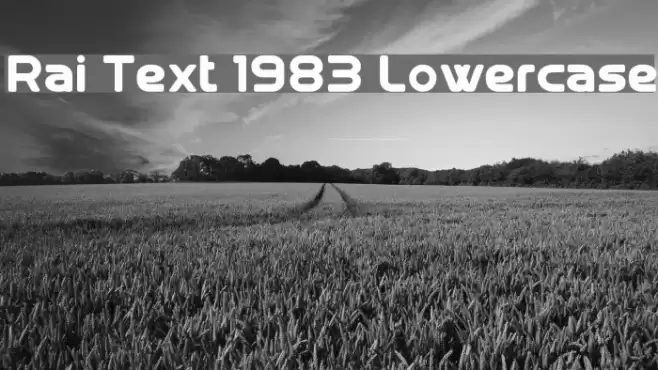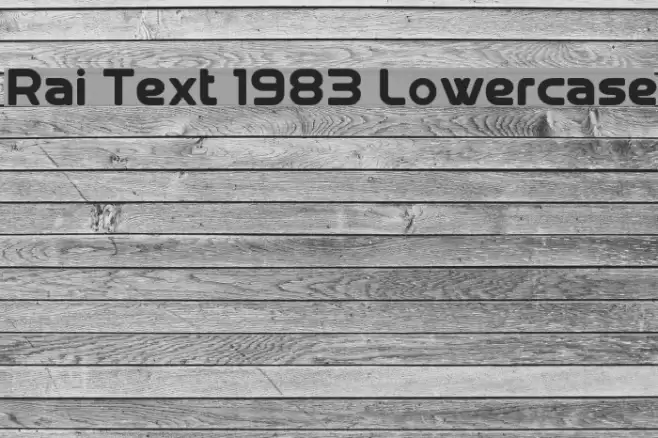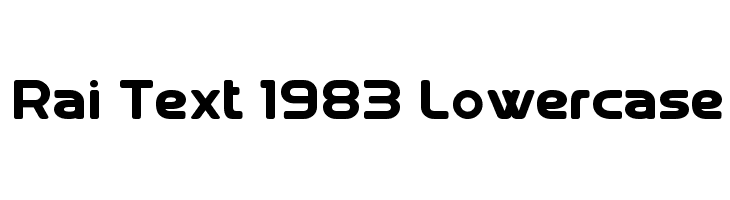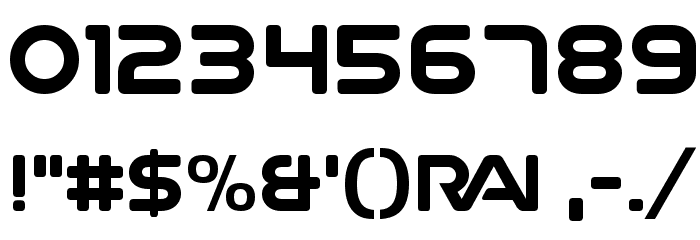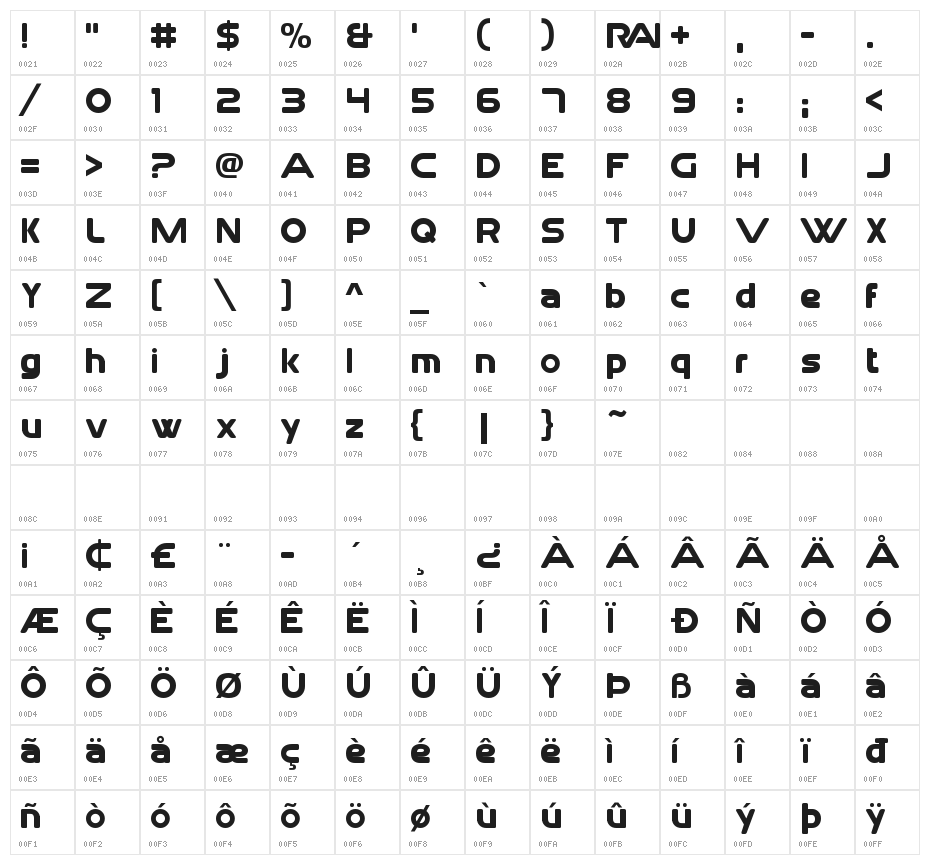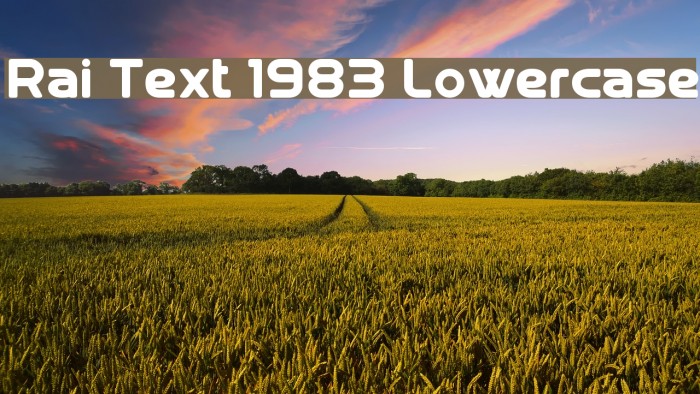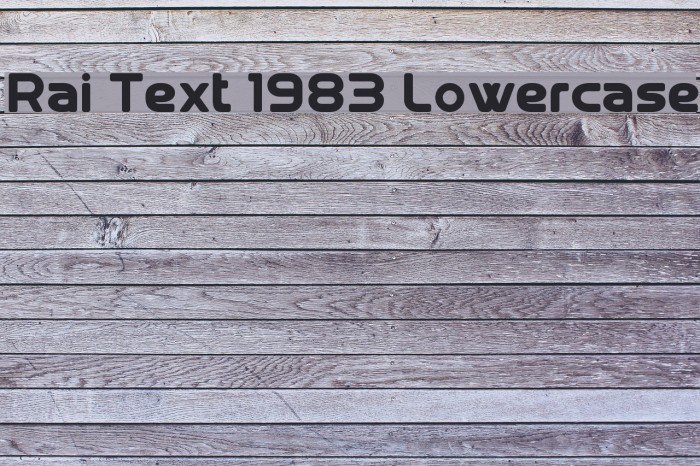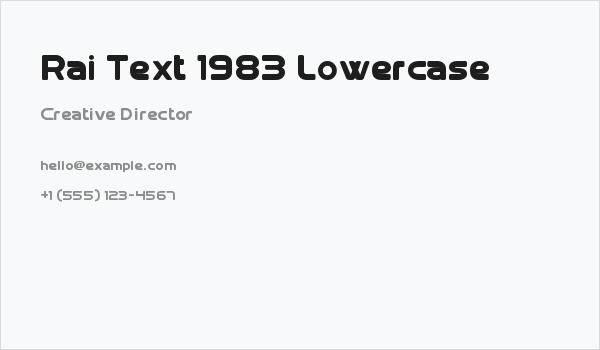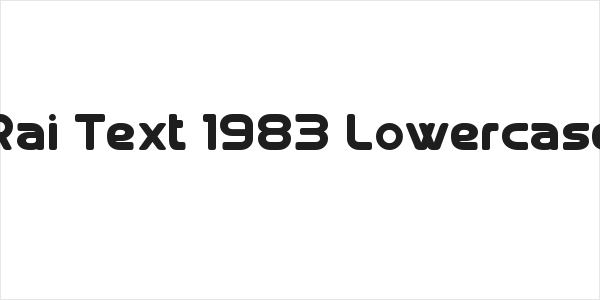
Rai Text 1983 Lowercase Font
Rai Text 1983 Lowercase Description
This font features a bold, rounded sans-serif style with a modern and futuristic aesthetic. The characters are uniformly thick, providing a strong and cohesive appearance. Its rounded edges and smooth curves give it a friendly and approachable feel, while maintaining a clean and professional look. The font is highly legible, making it suitable for various design purposes. The numbers and special characters are consistent with the overall style, ensuring a harmonious visual presentation.
A bold, rounded sans-serif font with a modern and cohesive design from Uncategorized fonts.
- Proposed Projects: Ideal for technology branding, modern advertising, digital interfaces, and futuristic-themed projects.
- Use Case: Headlines, Logos, Digital interfaces